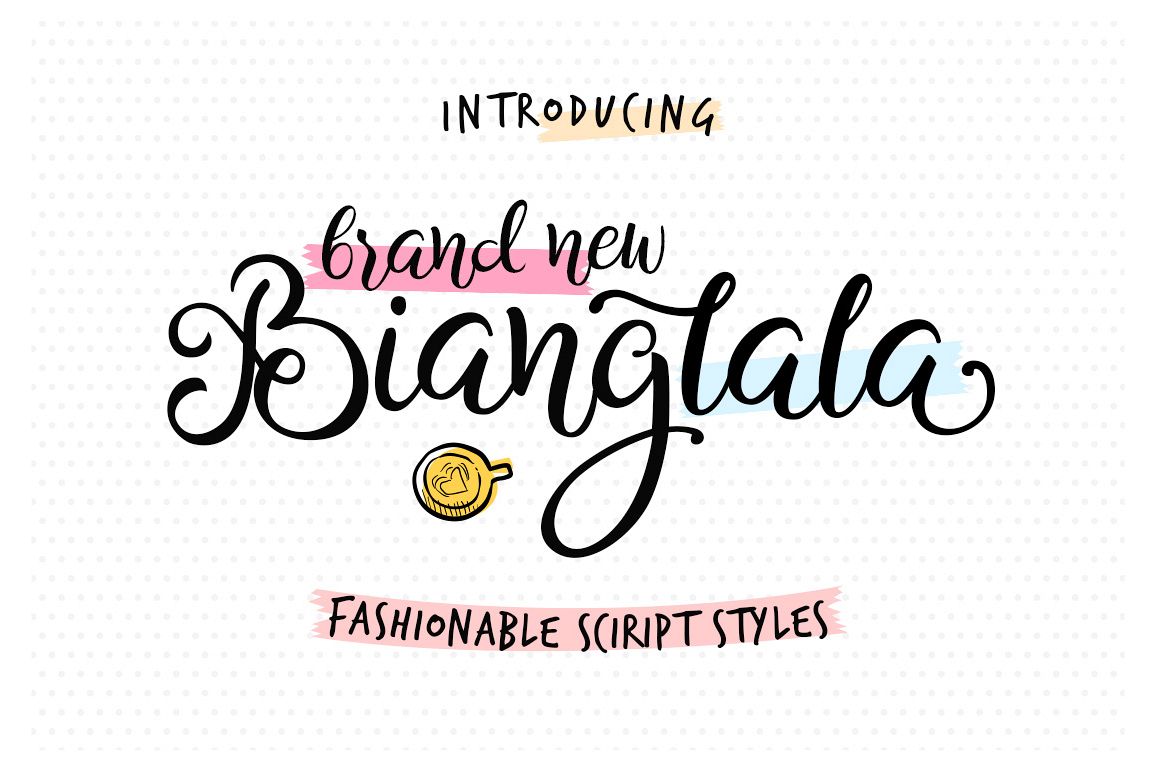
Bianglala
This is my new font called Bianglala a beautifull handlettering script font with a elegant and tasty letters it's allow you to make beautifull hand-lettering typography easily.
This font comes 2 styles Regular and Bold and with upper and lowercase characters, large set of punctuation glyphs, numerals, and supports international languages. Stylistic alternates for several key lower case characters are also available, accessible in the Adobe Illustrator Glyphs panel, or under Stylistic Alternates in the Adobe Photoshop OpenType menu.